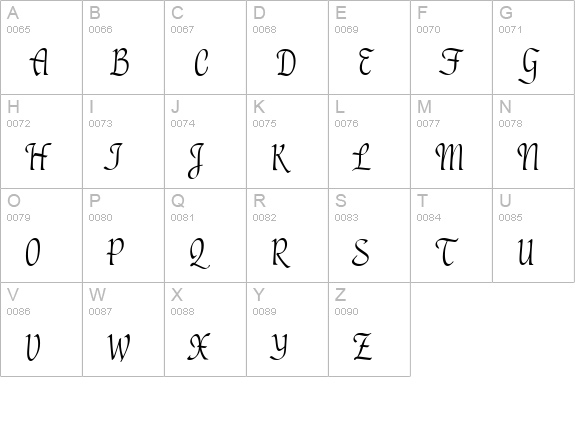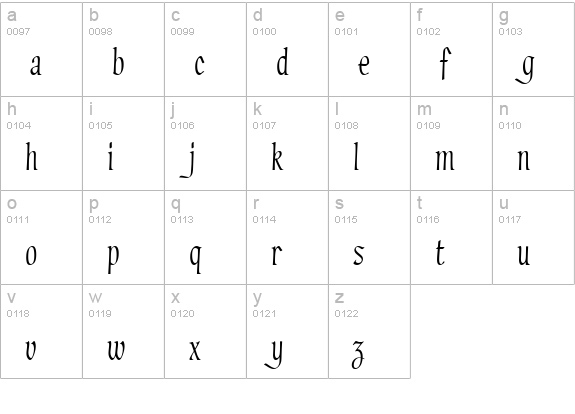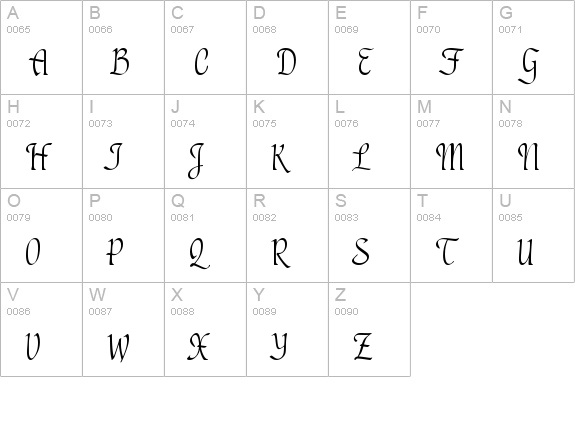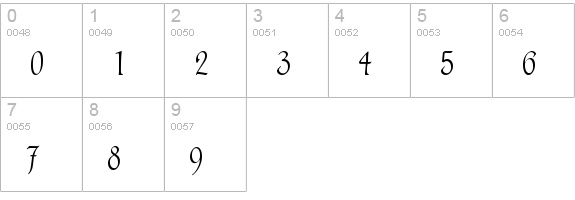
Hayden-Regular Font Details
Hayden-Regular is the standard, neutral variant in the Hayden typeface family \xE2\x80\x94 well suited to general body text, paragraphs, and standard typographic work.
Hayden-Regular is a versatile and modern font that combines elegance with readability. With its clean lines and balanced proportions, this typeface is perfect for a wide range of design projects, from branding to editorial design. Whether you're creating a sleek logo or designing a stylish poster, Hayden-Regular is sure to make your text stand out. The best part? Hayden-Regular is available for free download at FontsMarket.com. This means you can easily access this high-quality font without breaking the bank. So why settle for generic typefaces when you can elevate your designs with Hayden-Regular for free? Download it today and add a touch of sophistication to your projects.